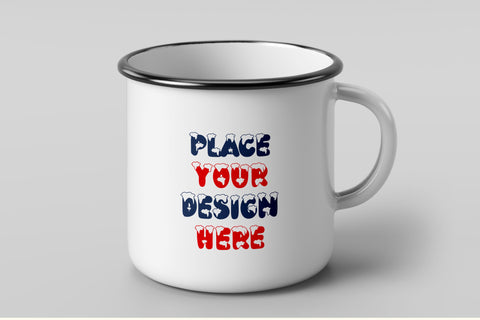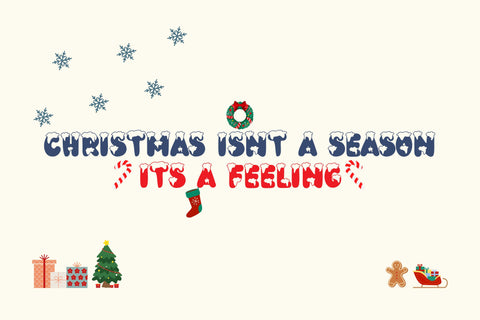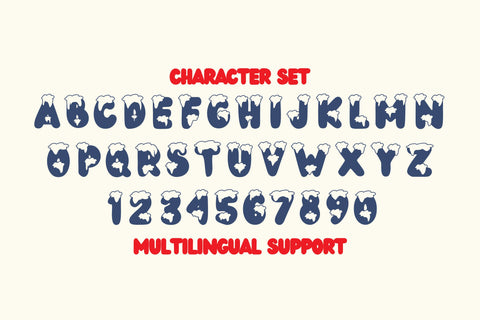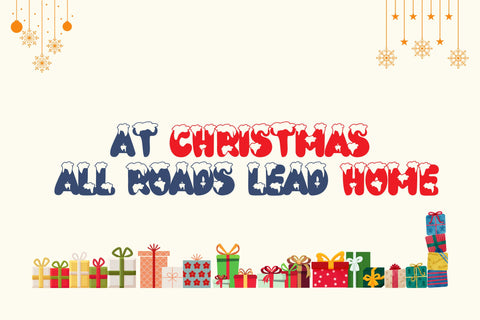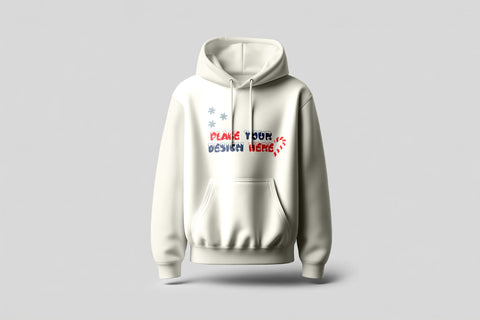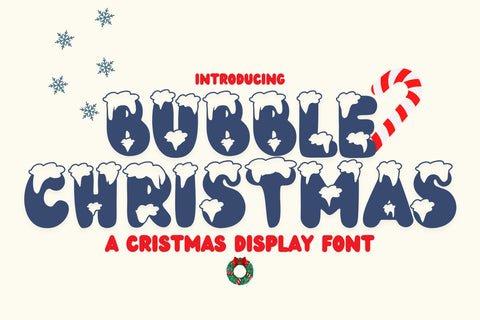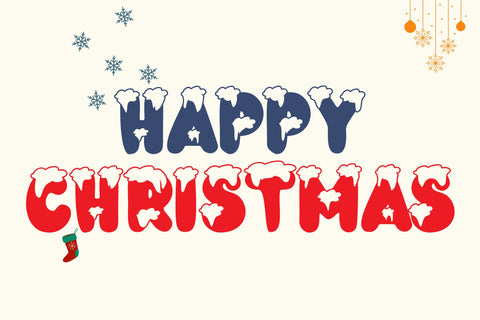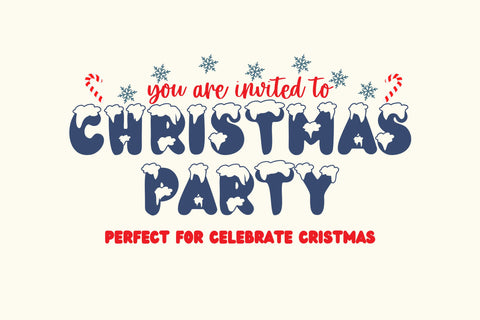
Bubble Christmas
Bubble Christmas Font is a fun, bubbly, and festive typeface that captures the magic of the holiday season! With its playful, rounded letters and joyful design, this font is perfect for Christmas-themed projects, greeting cards, gift tags, holiday invitations, decorations, and more. The cheerful and cozy feel of Bubble Christmas Font makes it an excellent choice for adding a whimsical holiday touch to your creative designs.
- Festive and Playful Design: A bubbly, rounded font with a fun Christmas spirit.
- Perfect for Holiday Projects: Ideal for Christmas cards, invitations, gift tags, social media posts, and more.
- High-Quality Lettering: Smooth and carefully crafted characters for a professional look.